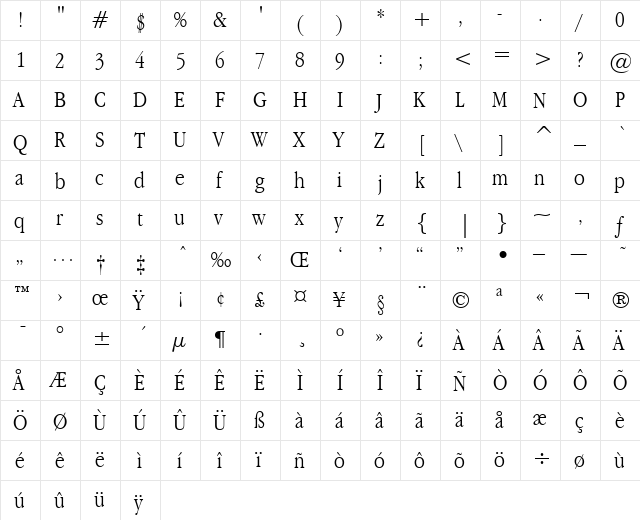
Apple Garamond BT Light
Apple Garamond BT offers clean, dependable letterforms without strong stylistic allegiance, making it a practical choice for designers who need flexibility. The delicate stroke weight brings airiness and refinement to layouts.